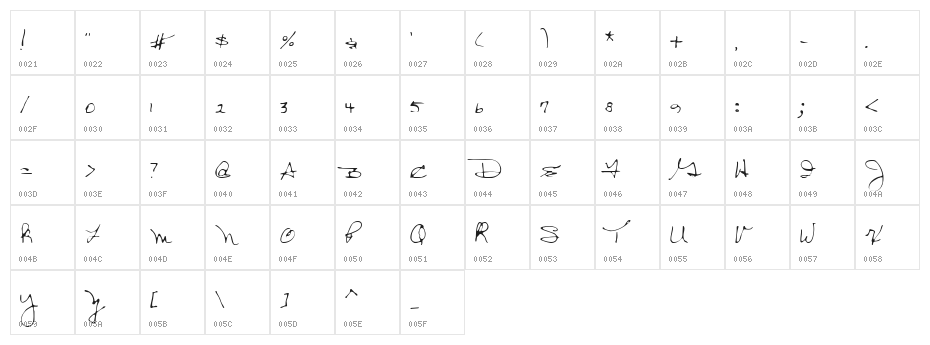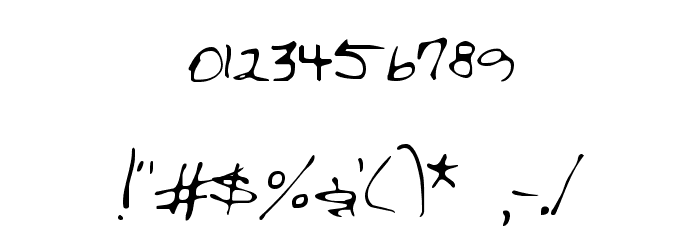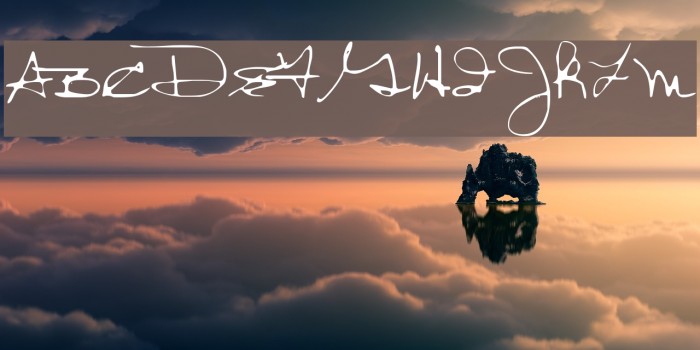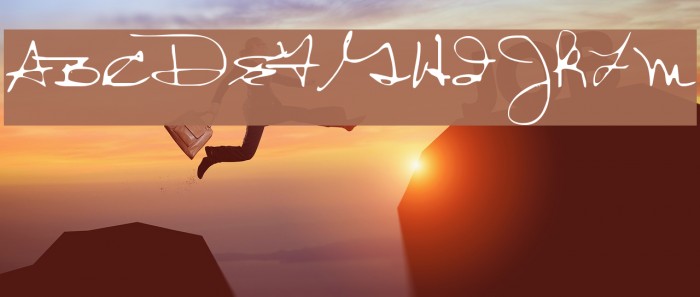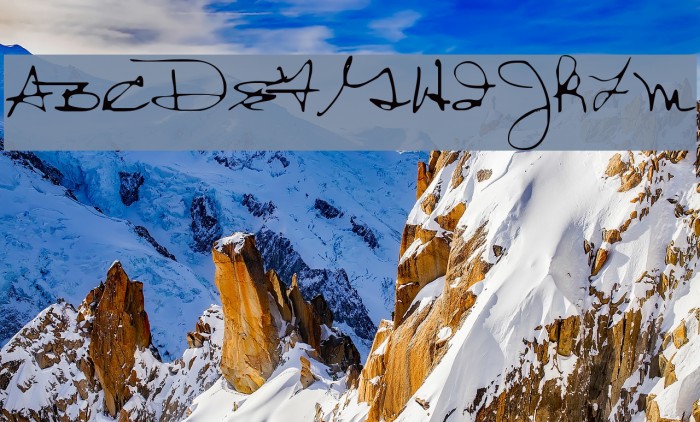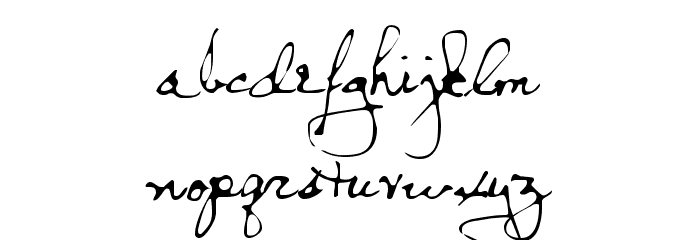
Pops2 Font
Pops2 Description
This font exhibits a highly decorative and artistic style, characterized by its fluid, cursive script that mimics the appearance of elegant handwriting. The uppercase letters are particularly elaborate, with intricate loops and swirls that give each character a unique flair. The lowercase letters maintain a consistent flow, enhancing the overall cohesiveness of the font. Numbers and special characters are equally stylized, ensuring a uniform aesthetic throughout. The font's design is reminiscent of calligraphy, making it suitable for projects that require a touch of sophistication and creativity.